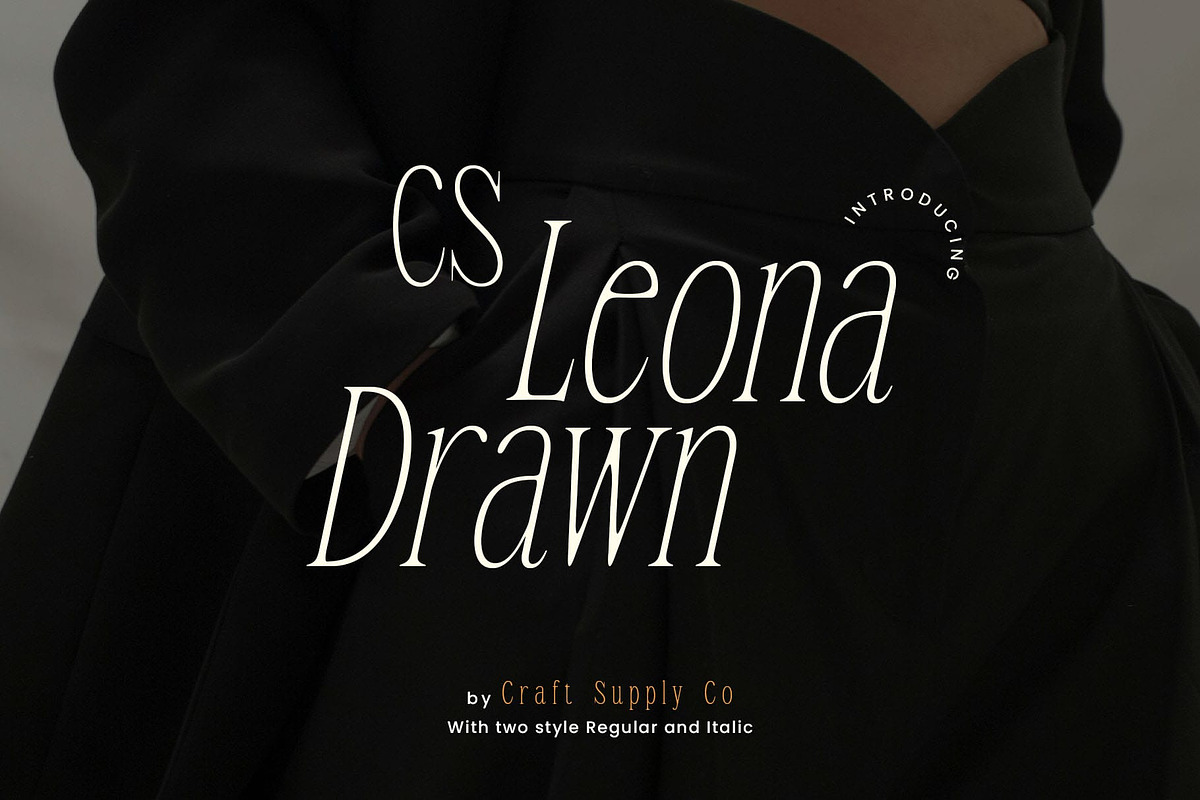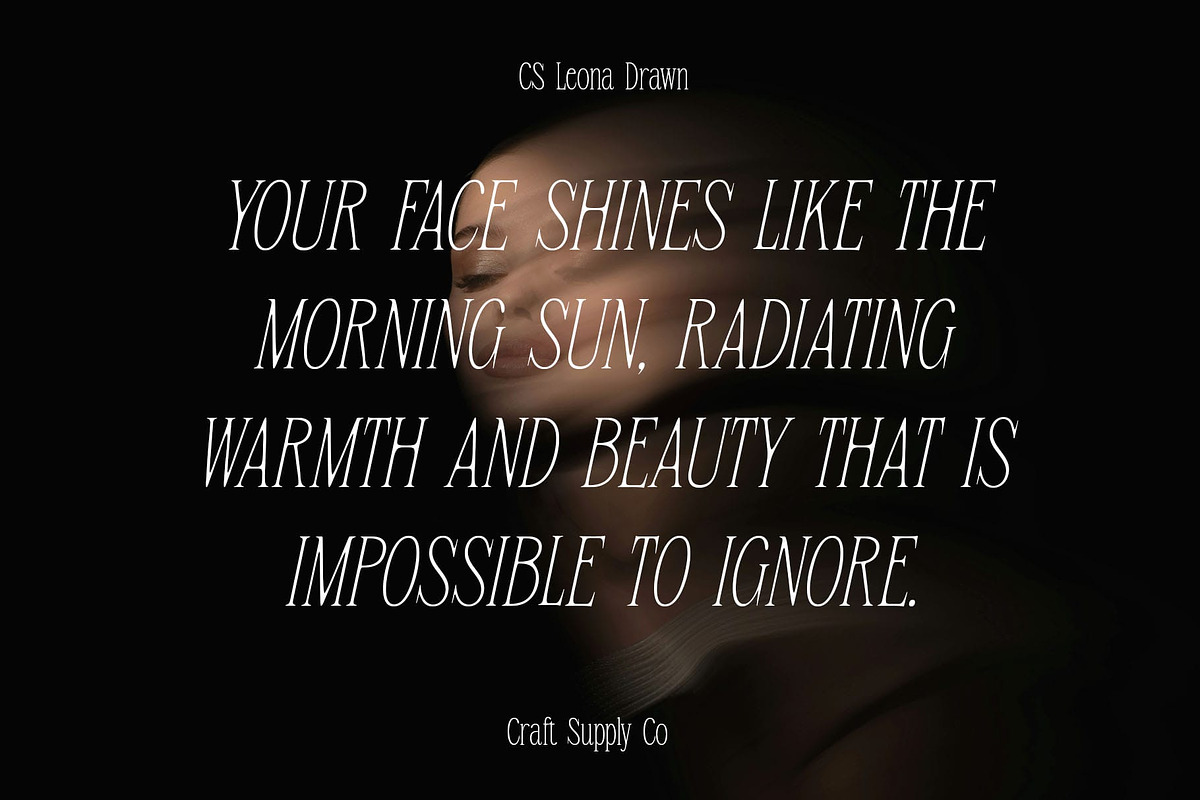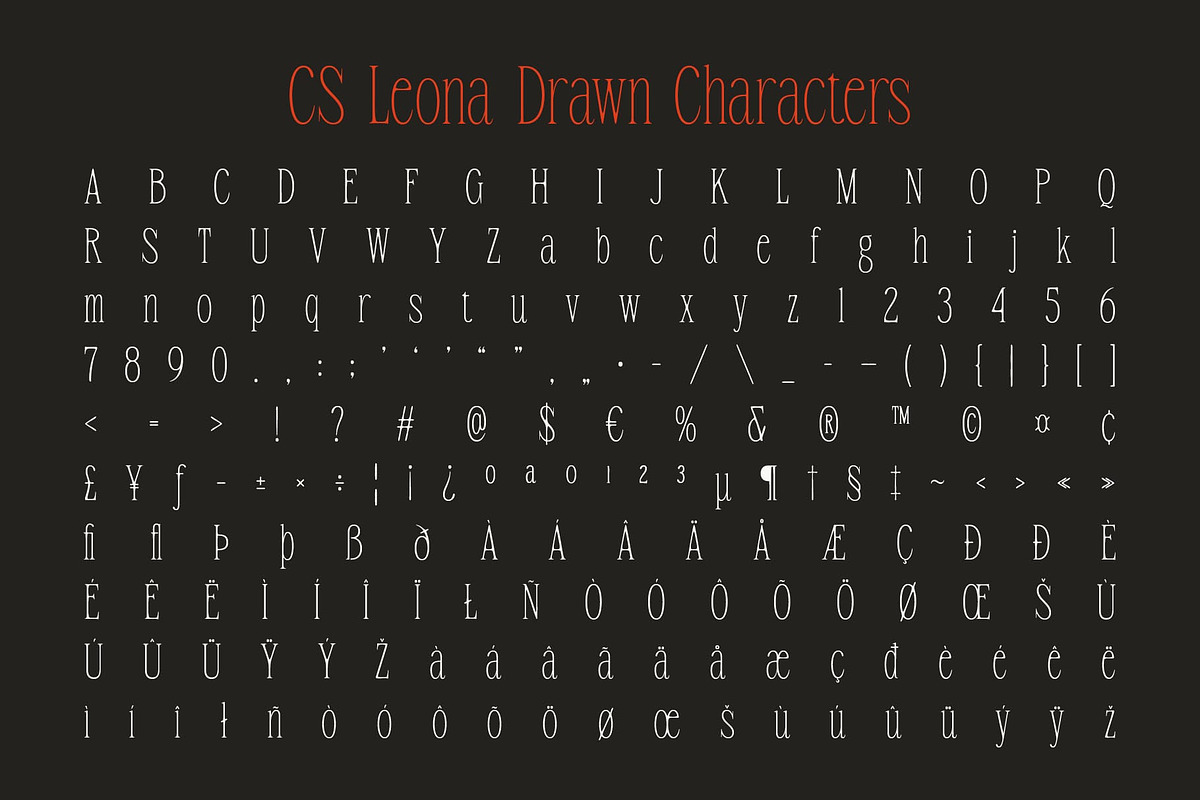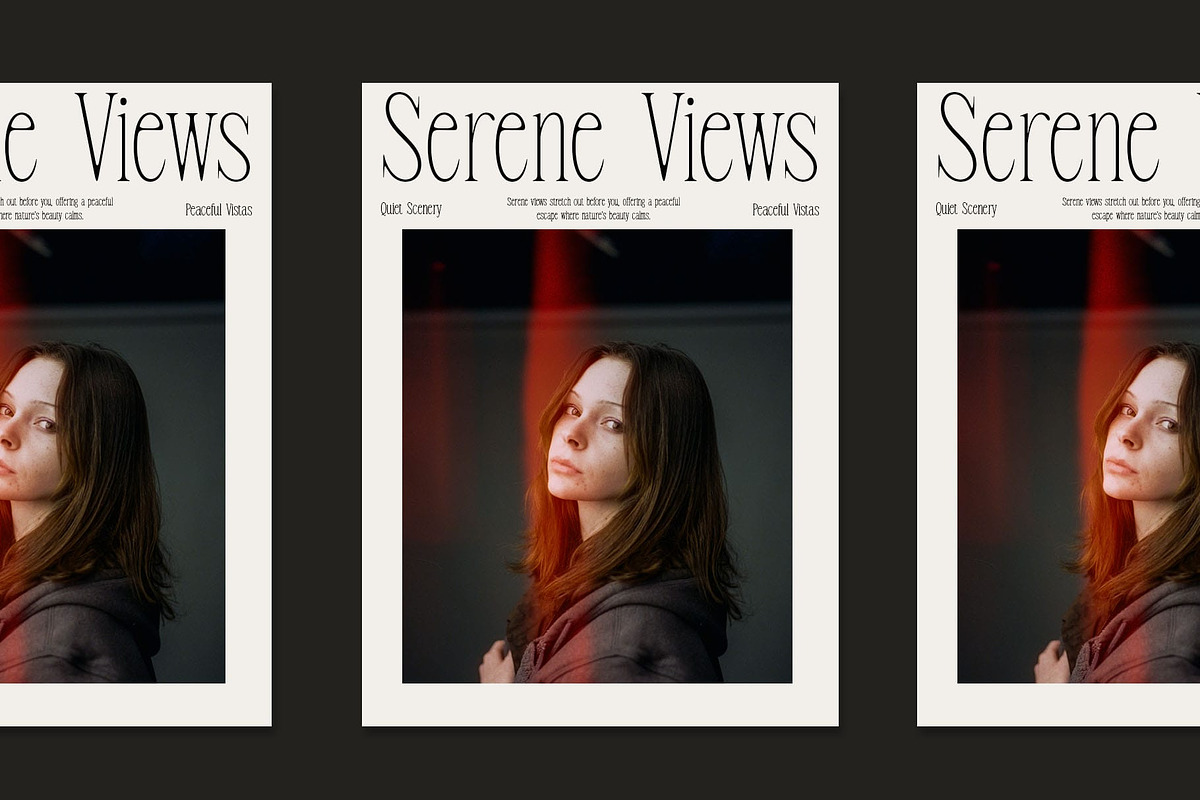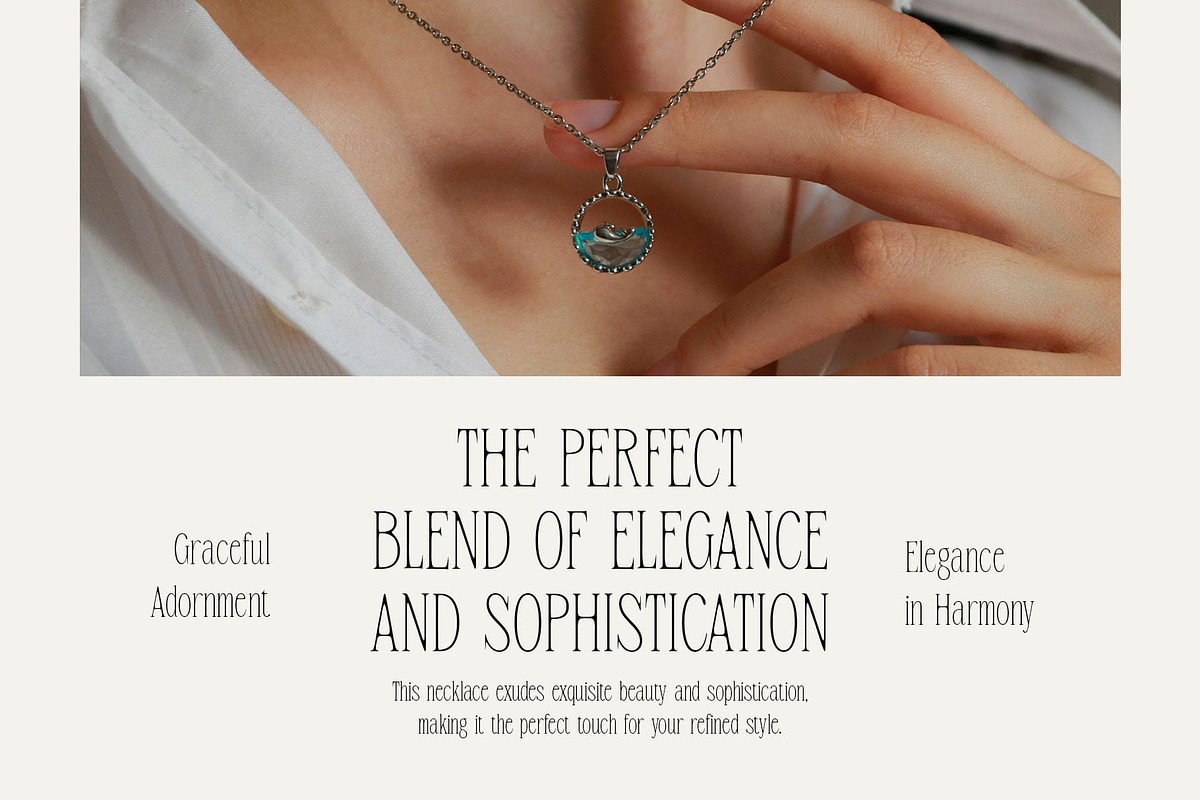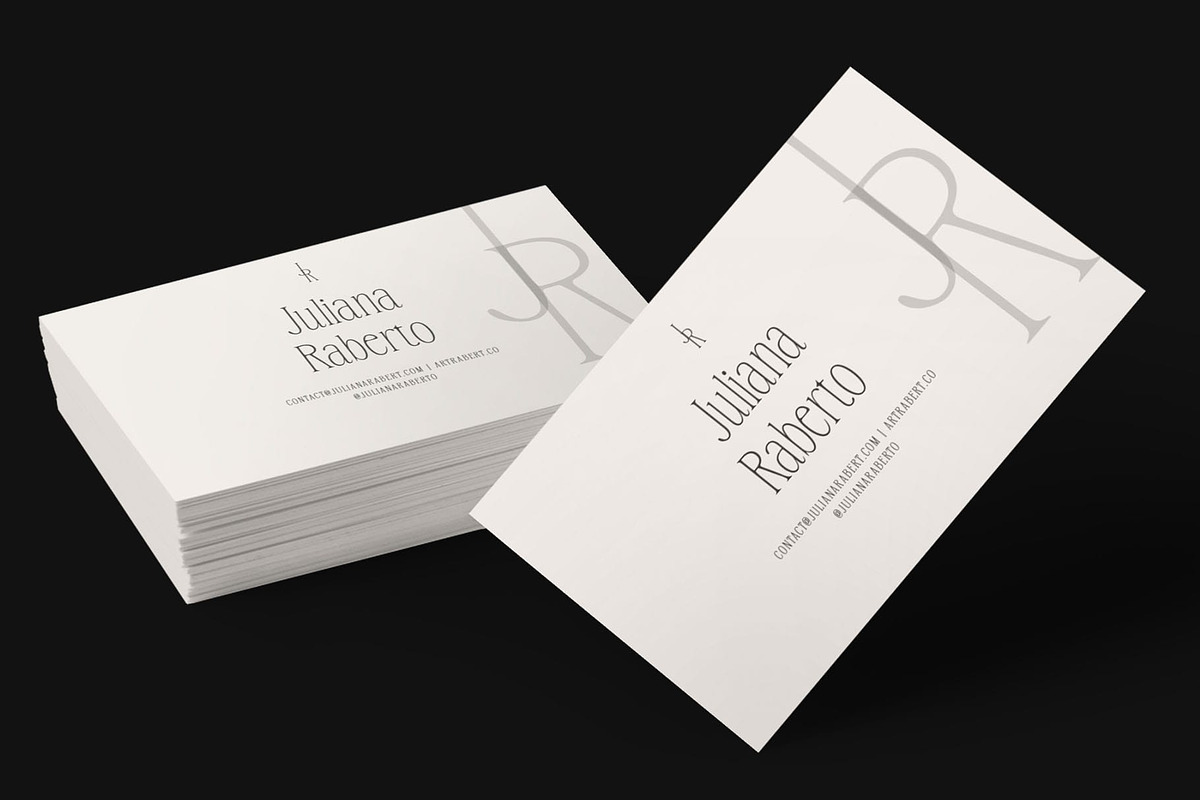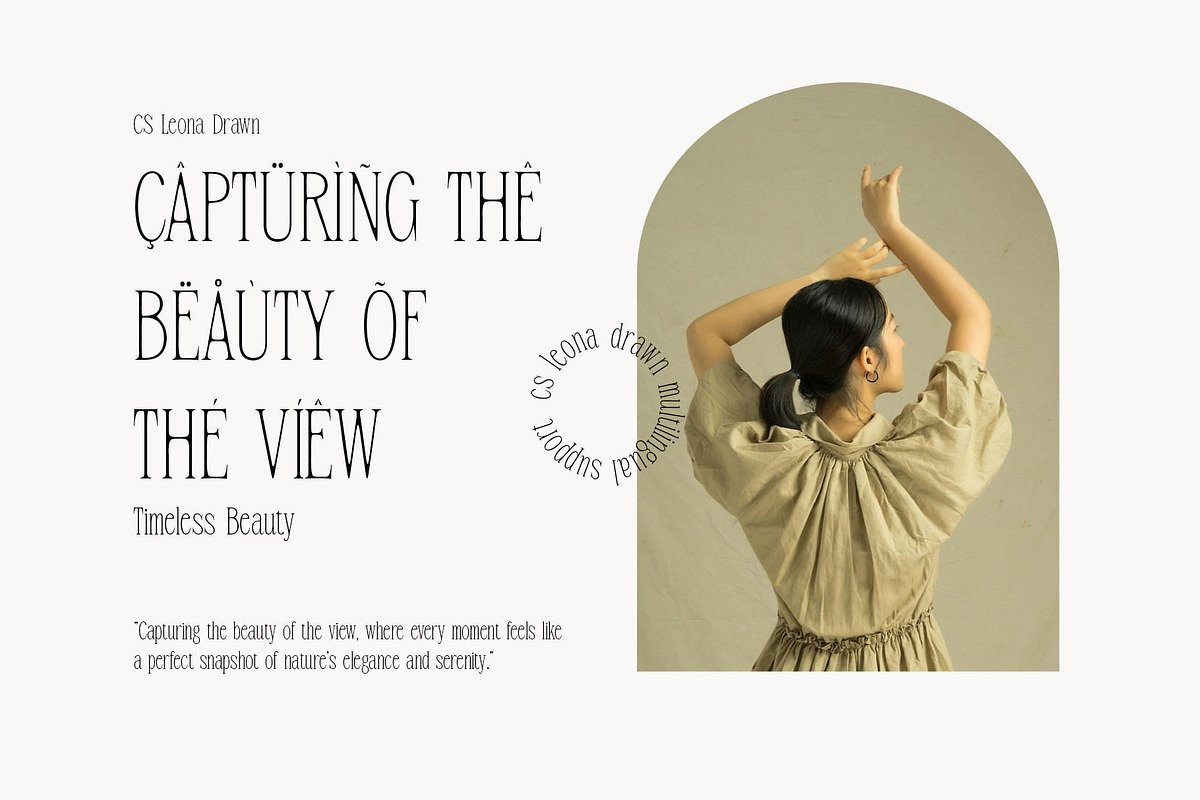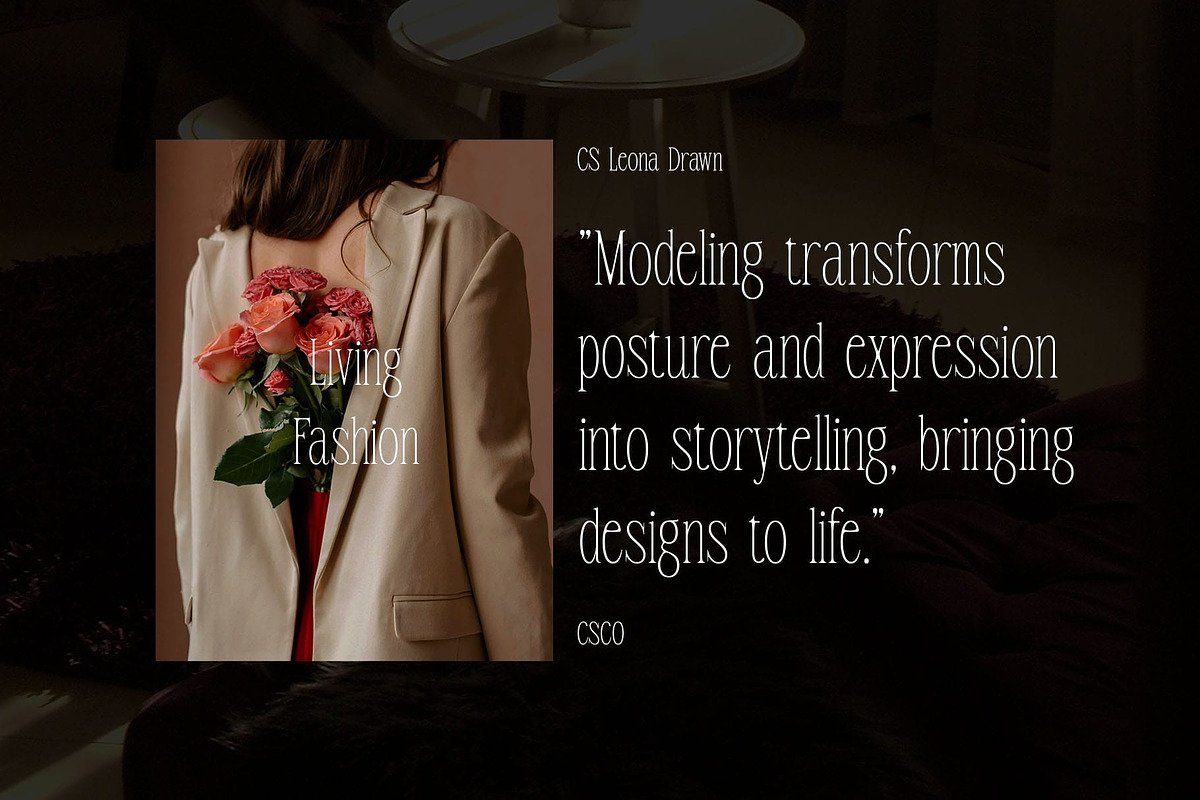
CS Leona Drawn
CS Leona Drawn – Elegant, Slim, and Artistic Serif Font
A Unique Blend of Classic Elegance and Artistic Flair CS Leona Drawn is a modern serif font that combines a slim, condensed form with a delicate drawn effect, resulting in a typeface that exudes elegance, sophistication, and artistry. The font’s slim profile maximizes space efficiency while retaining exceptional readability, making it ideal for designs that require a refined yet compact look. The condensed shape emphasizes focus and precision, offering a sleek, contemporary feel that complements its classic serif structure.
A Handcrafted Touch with Organic Texture What sets this font apart is its beautiful drawn effect, which adds a unique, handcrafted quality to the font. The clean geometric lines are softened by the subtle imperfections of the drawn style, creating a striking contrast between structure and freeform elements. This organic texture introduces an artistic layer to the font’s otherwise minimalist design, lending it a creative and human touch that enhances visual appeal and gives it personality.
Elegance with an Artistic Edge The resulting impression of this drawn font is one of elegance and artistry. Its classic serif design maintains a sense of sophistication, while the drawn effect introduces an artistic, personal flair. This fusion makes the font perfect for projects that demand a balance of timeless elegance and contemporary artistry.
- CS Leona Drawn Regular
- CS Leona Drawn Italic